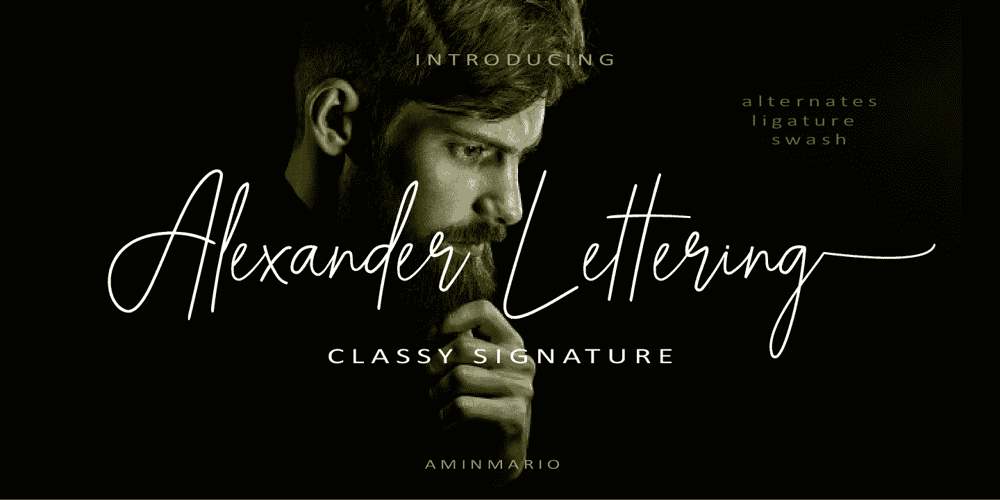
Alexander Lettering Font Family was designed by Måns Grebäck and published by Mans Greback. Alexander Lettering contains 4 styles and family package options. Alexander Lettering is a handwriting font that captures the wild and choppy essence of a sloppy signature. With its childish and fast-paced strokes, this font gives off a sense of spontaneity, making it perfect for projects that require a less formal and more playful touch.This typeface was created by exploring the unpolished side of handwriting, drawing inspiration from the hurried notes and scribbles that often accompany our everyday lives. Alexander Lettering embraces the imperfections of the human touch, giving your designs an authentic and relatable feel.The font is built with advanced OpenType functionality and has a guaranteed top-notch quality, containing stylistic and contextual alternates, ligatures, and more features; all to give you full control and customizability. It has extensive lingual support, covering all Latin-based languages, from Northern Europe to South Africa, from America to South-East Asia. It contains all characters and symbols you’ll ever need, including all punctuation and numbers.